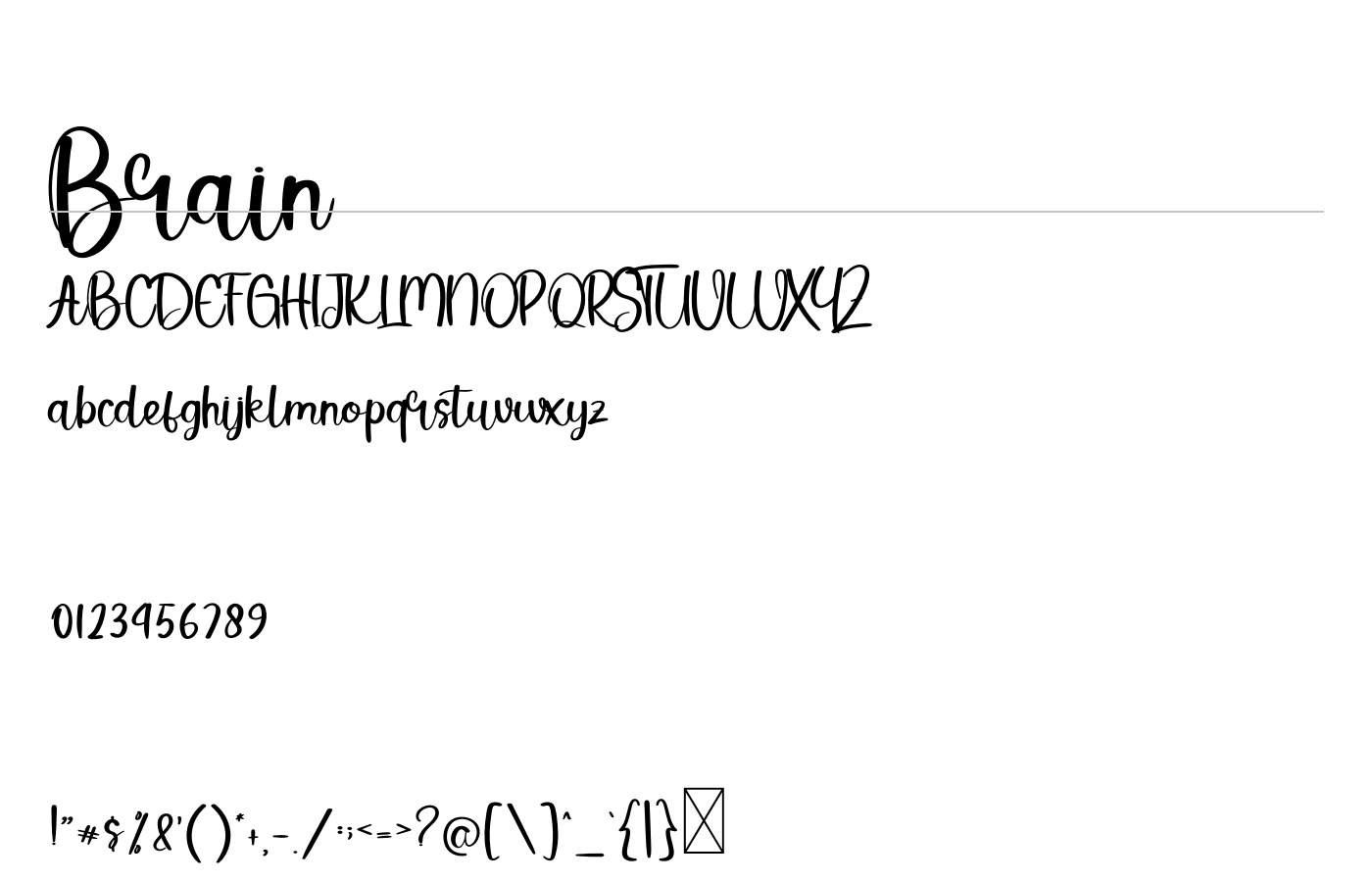
Brain Font is a playful and elegant script typeface characterized by its smooth, flowing strokes and lively, handwritten charm. Its upright letterforms feature a balanced mix of thick and thin lines with a slightly condensed width, making it ideal for creative and casual branding, invitations, or logos where a personal, handcrafted feel is desired. This font’s friendly personality and clear readability also make it a great choice for stylish headlines and decorative text in both print and digital designs.
Brain Font